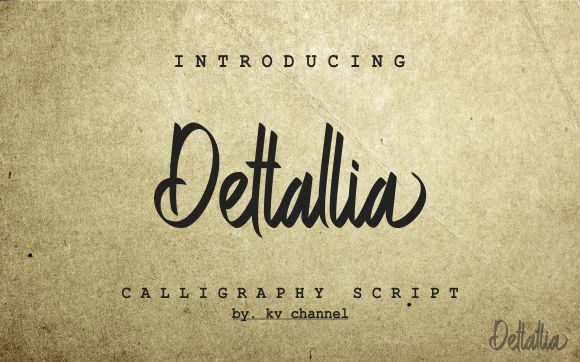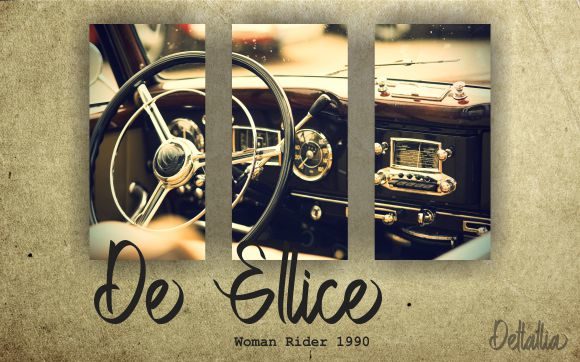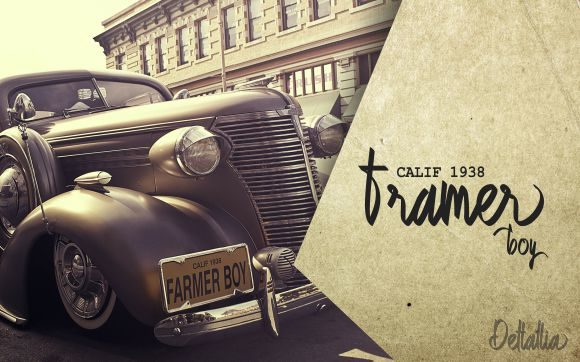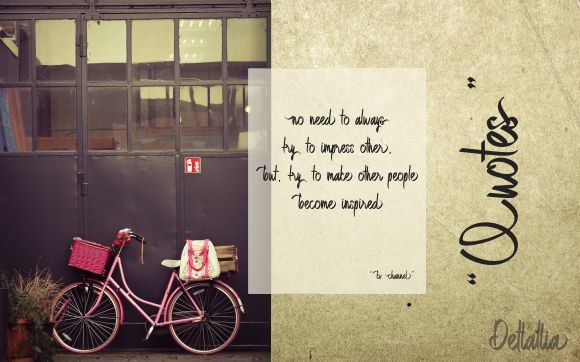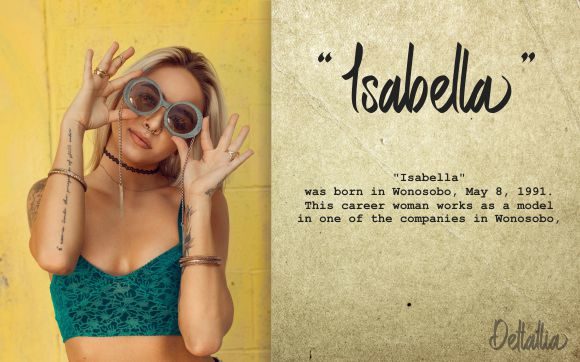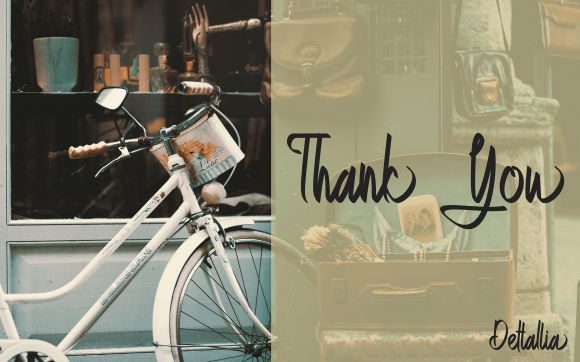
Dettallia Font
About Dettallia Font
The Dettallia is an elegant, contemporary calligraphy font. It has a cool and brave feel and is perfect for logos, magazine covers, invitations, and much more!